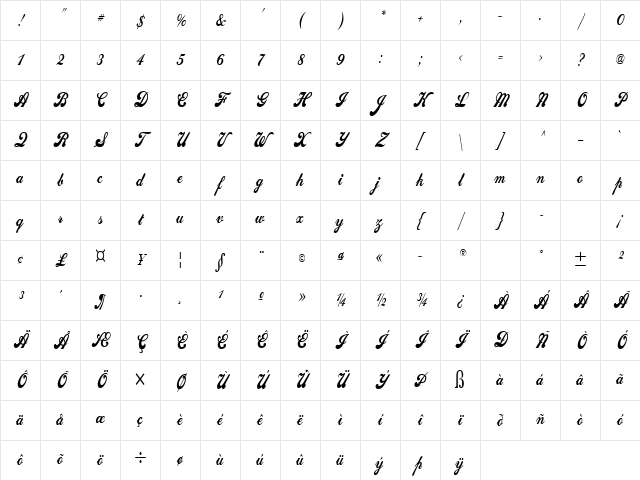
Complete Sweden Thin Normal glyph index. Displaying only characters natively supported by Sweden Thin Normal font.
Sweden Thin is a composed and adaptable typeface that performs quietly and consistently across a wide range of design contexts. Its slender proportions lend an understated elegance to any composition.